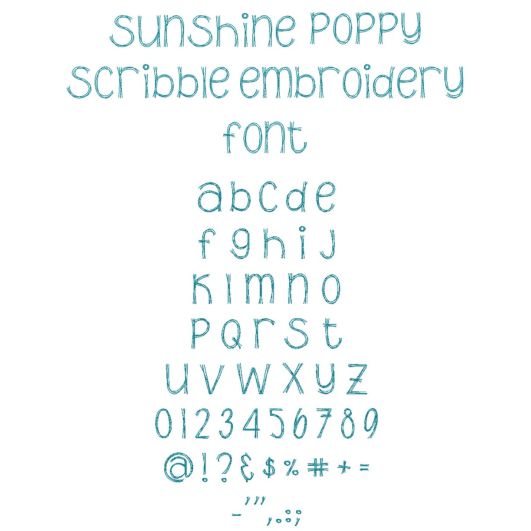
Sunshine Poppy Scribble Bean Stitch Embroidery Font
This font features three passes of bean stitches for a scribbled look!
Please note: this is a whimsical unicase font featuring a mix of capital and lowercase letters. There is only one file for each letter, as pictured.